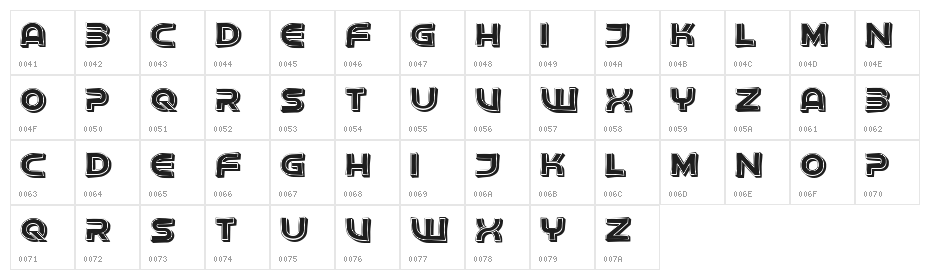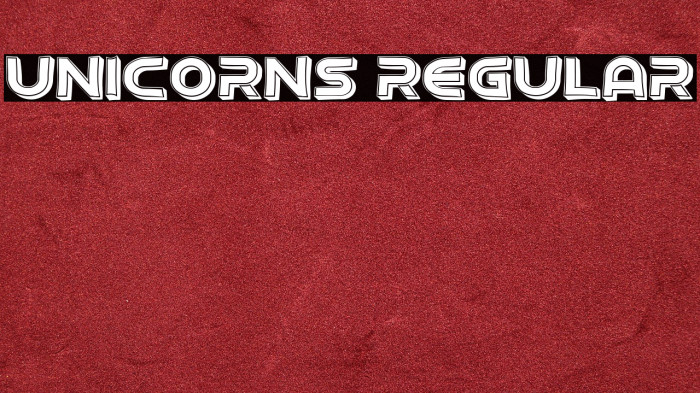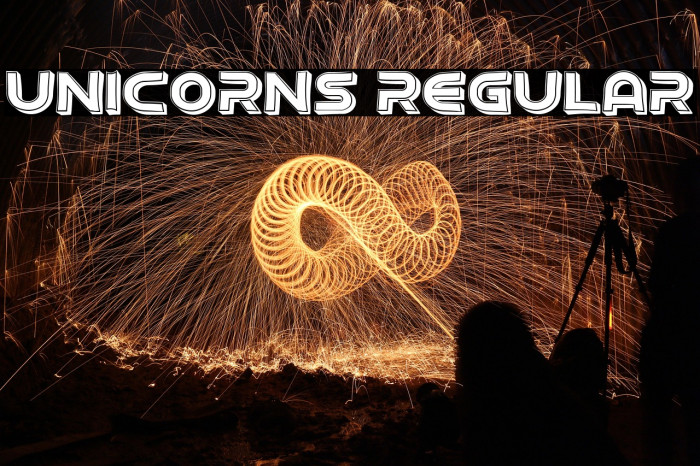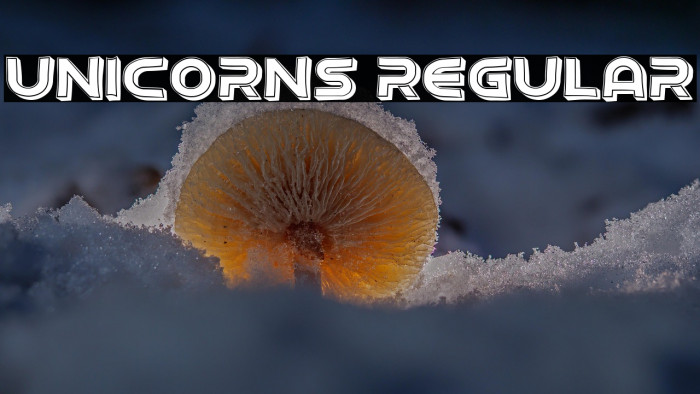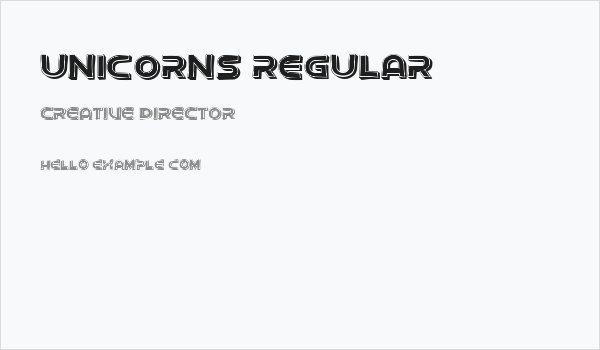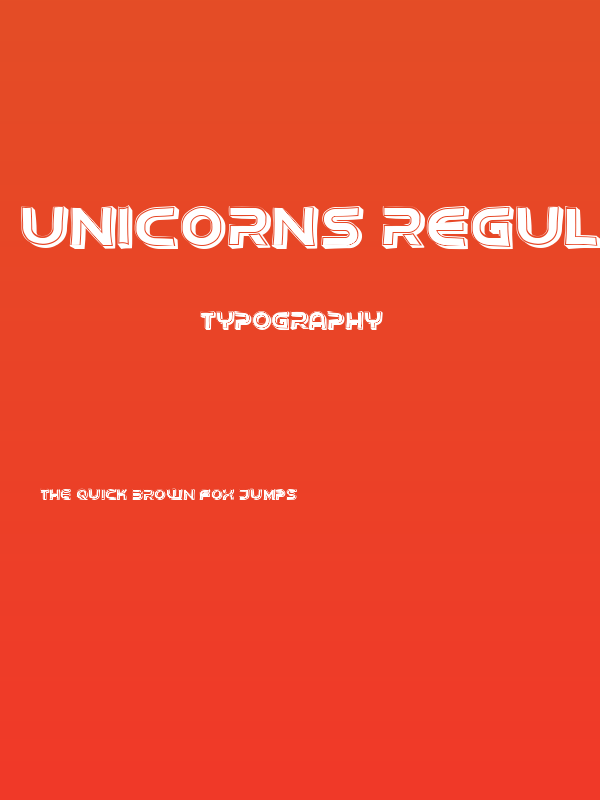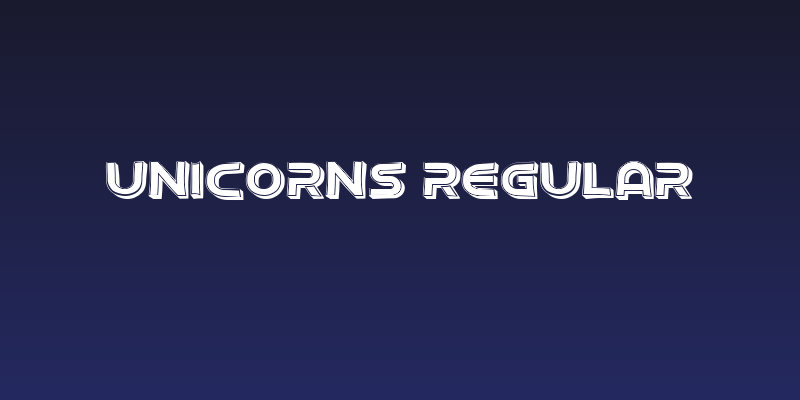
Unicorns Regular Font
Unicorns Regular Description
This font features a bold and dynamic design with a futuristic and geometric style. The characters are constructed with thick, solid lines and have a three-dimensional appearance, giving them a sense of depth and movement. The font's structure is consistent, with each letter maintaining a uniform width and height, creating a cohesive and balanced look. The edges are sharp and angular, adding to the modern and edgy feel of the typeface. This font is highly decorative and stands out with its unique and striking visual impact.
| Proposed Projects | Ideal for sci-fi themed projects, video game titles, posters, and branding that requires a modern and dynamic look. |